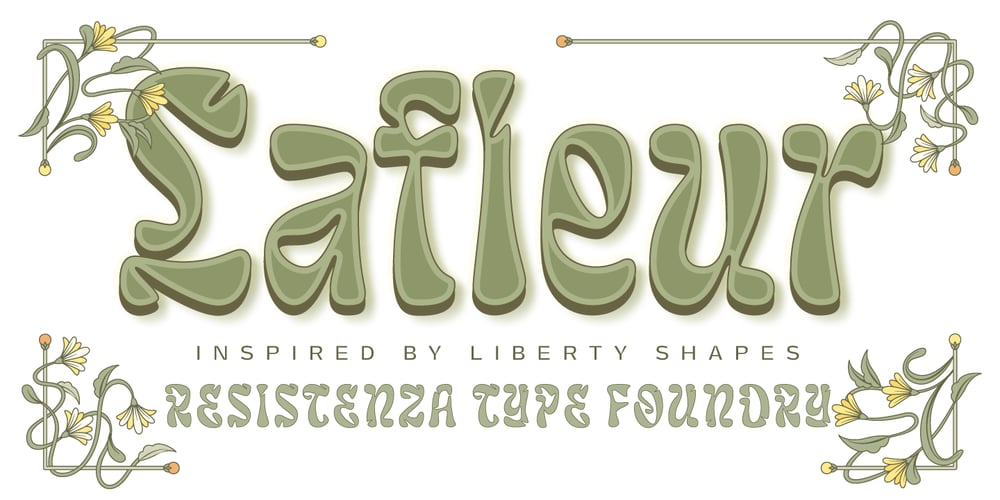
Lafleur
Lafleur font
Lafleur Font Family was designed by Giuseppe Salerno, Paco González and published by Resistenza. Lafleur contains 2 styles and family package options. Inspired by the iconic Fenoglio-Lafleur Liberty building in the city of Turin, in an area with significant Stile Liberty buildings and New Gothic architecture.Lafleur is a decorative face with a remarkable art nouveau flair from 19th century.Perfect for creative contemporary uses in print and on screen.We recommend it for book covers, packaging, branding, editorial, web, advertising, apparel, purposes are endless.More About Opentype Features: https://bit.ly/opentype-rsz